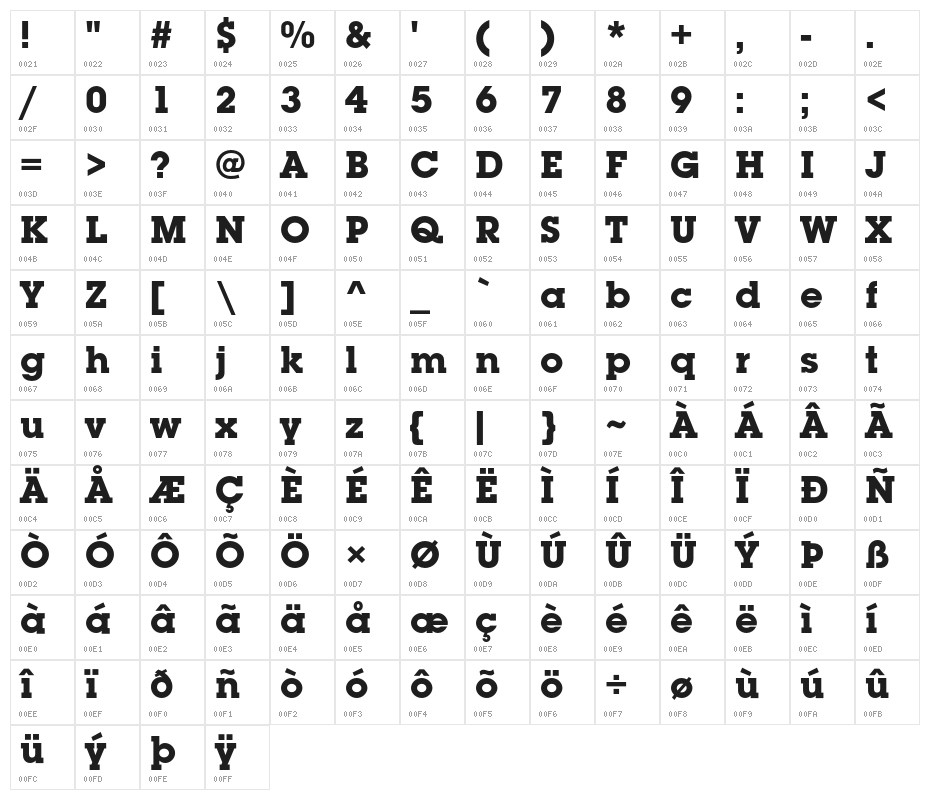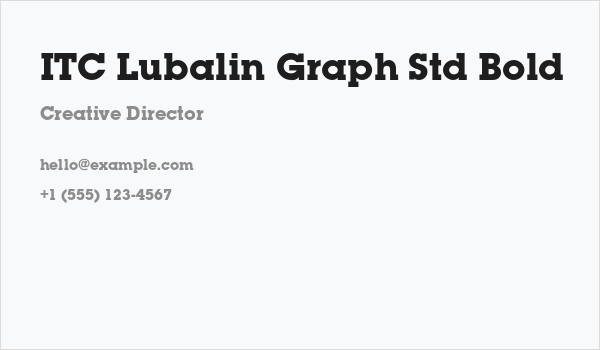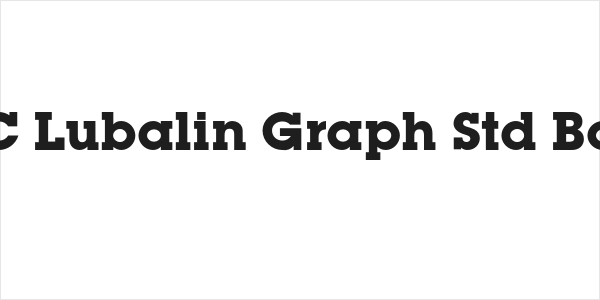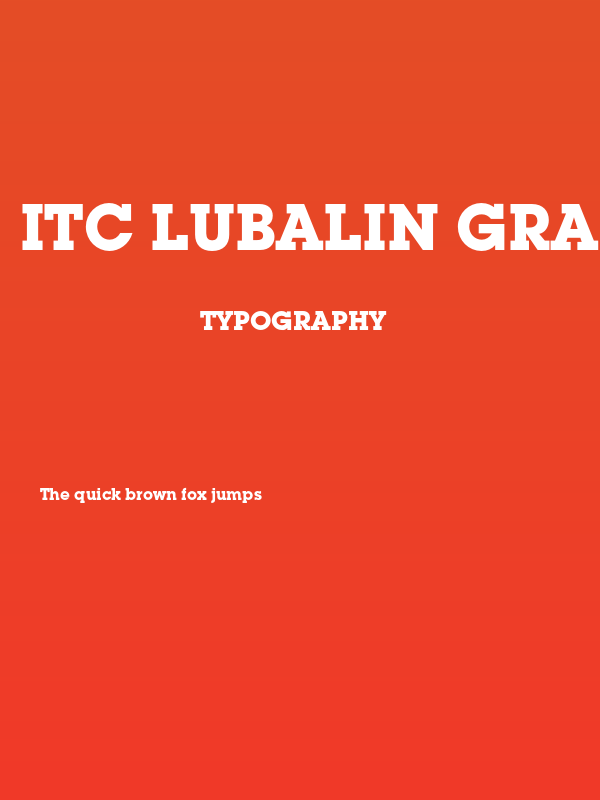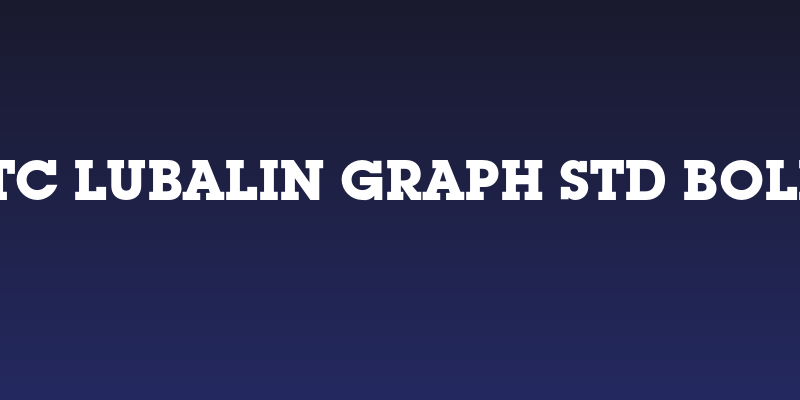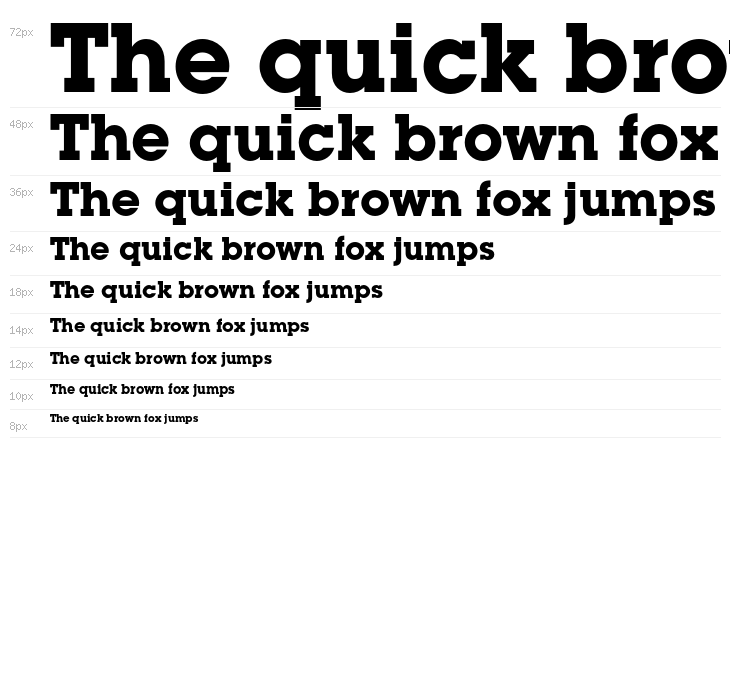
ITC Lubalin Graph Std Bold Font
ITC Lubalin Graph Std Bold Description
This font features a bold and robust slab serif design, characterized by thick, block-like serifs that give it a strong and authoritative presence. The letters are evenly spaced with a consistent weight throughout, providing a sense of stability and balance. The uppercase letters are particularly striking, with a commanding appearance that makes them ideal for headlines and titles. The lowercase letters maintain the same boldness, ensuring readability and impact. Numbers and special characters are designed with the same boldness, making them stand out clearly. This font's geometric structure and clean lines make it versatile for various design applications.
| Proposed Projects | Ideal for branding, advertising, posters, and any project requiring a strong visual impact. |